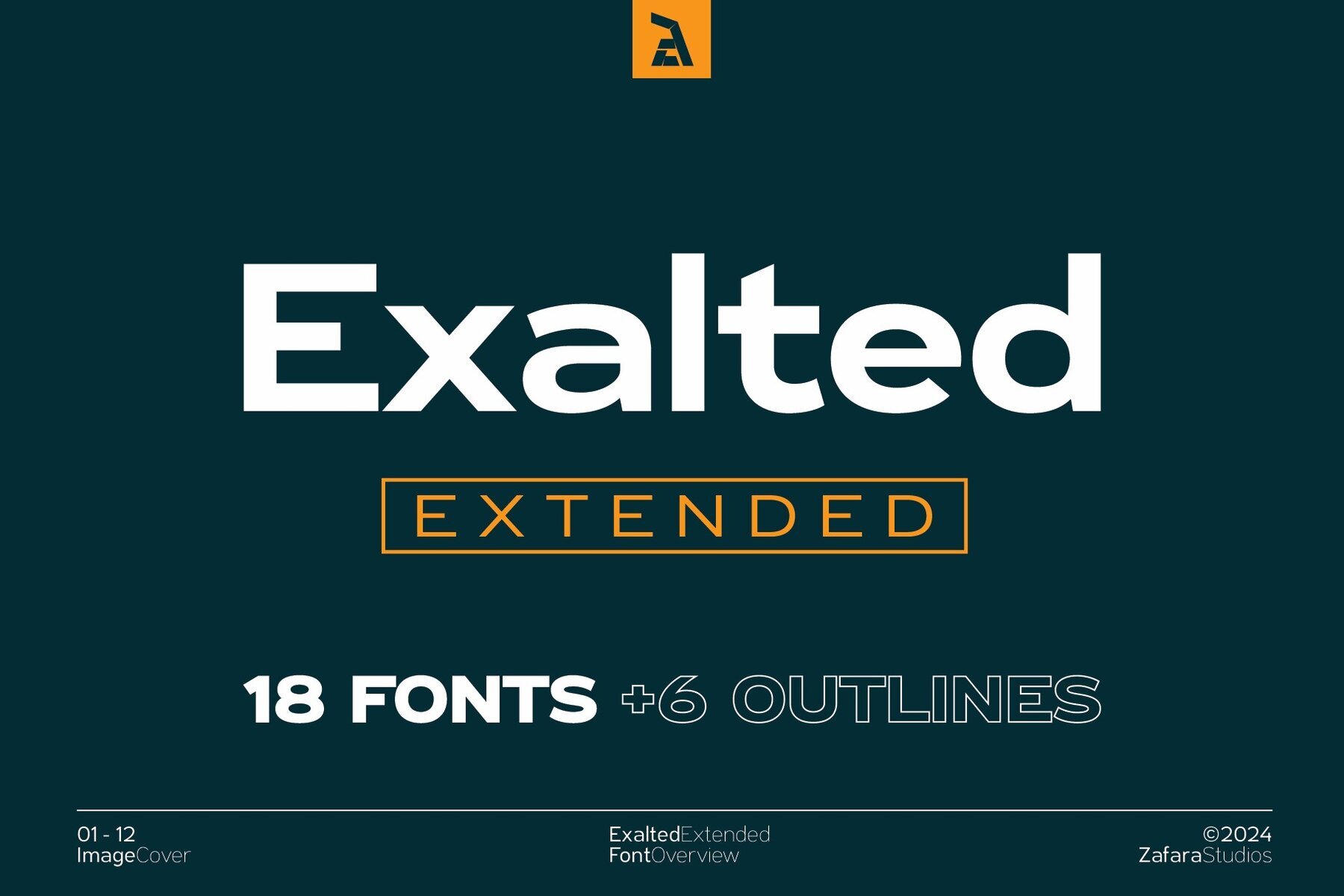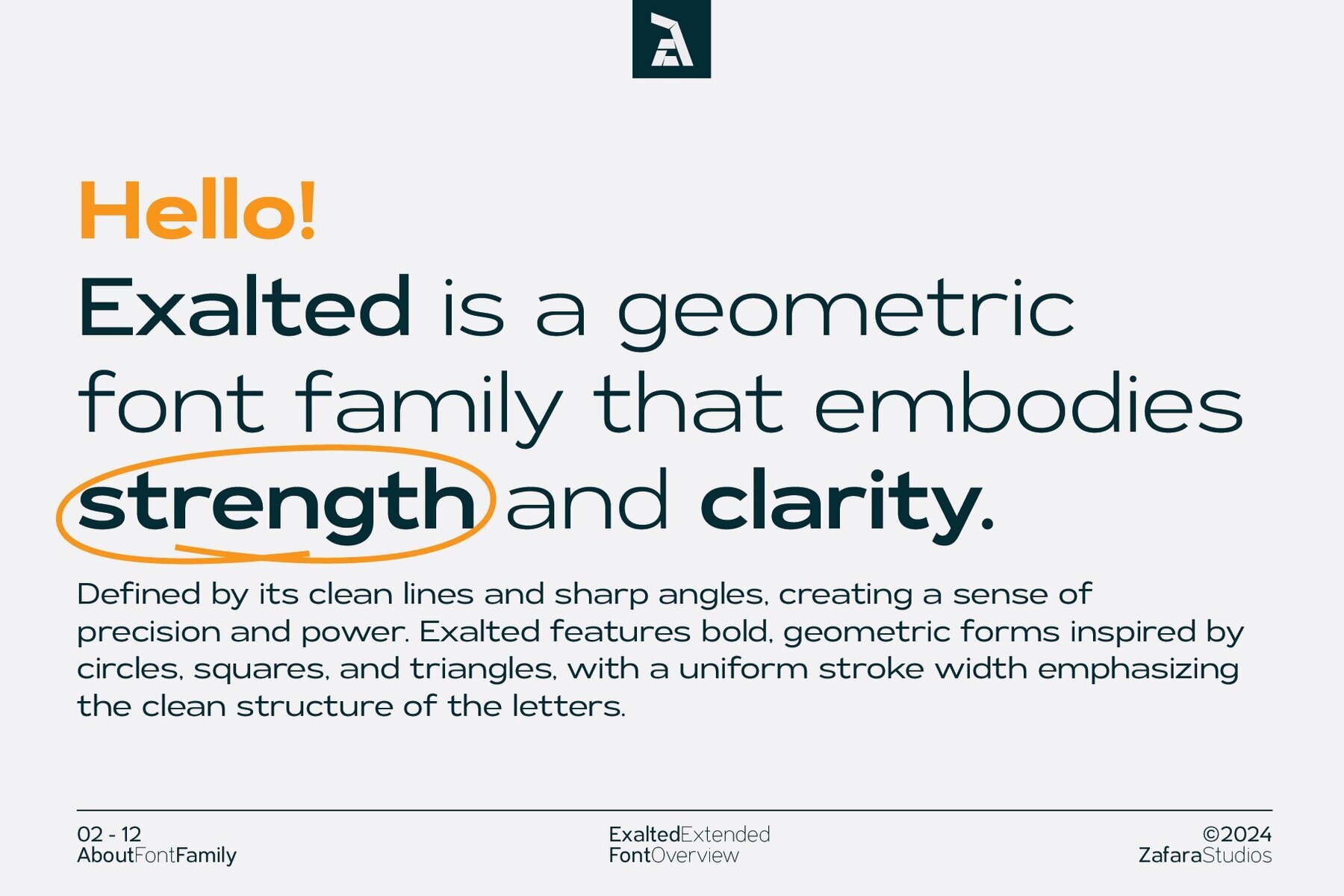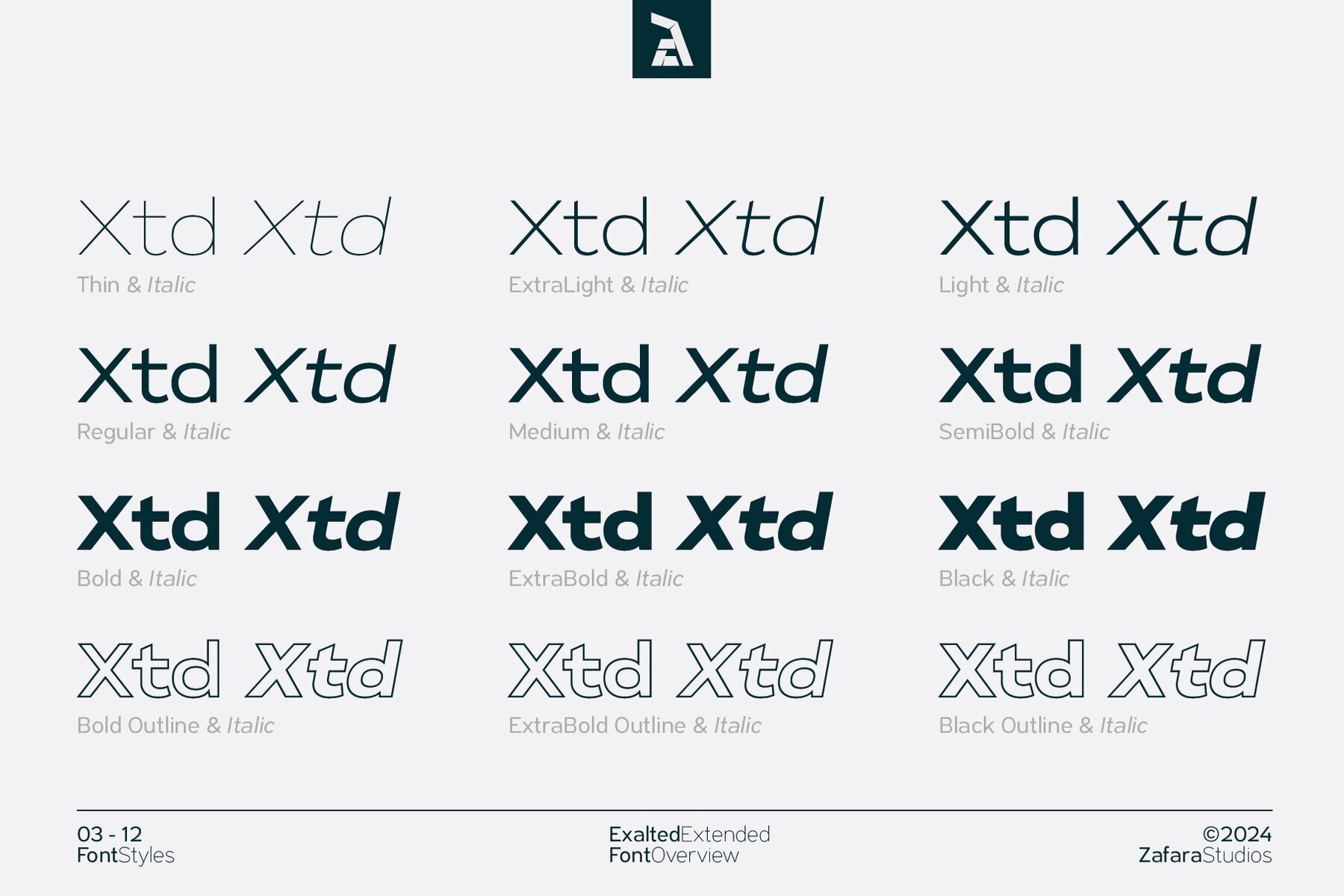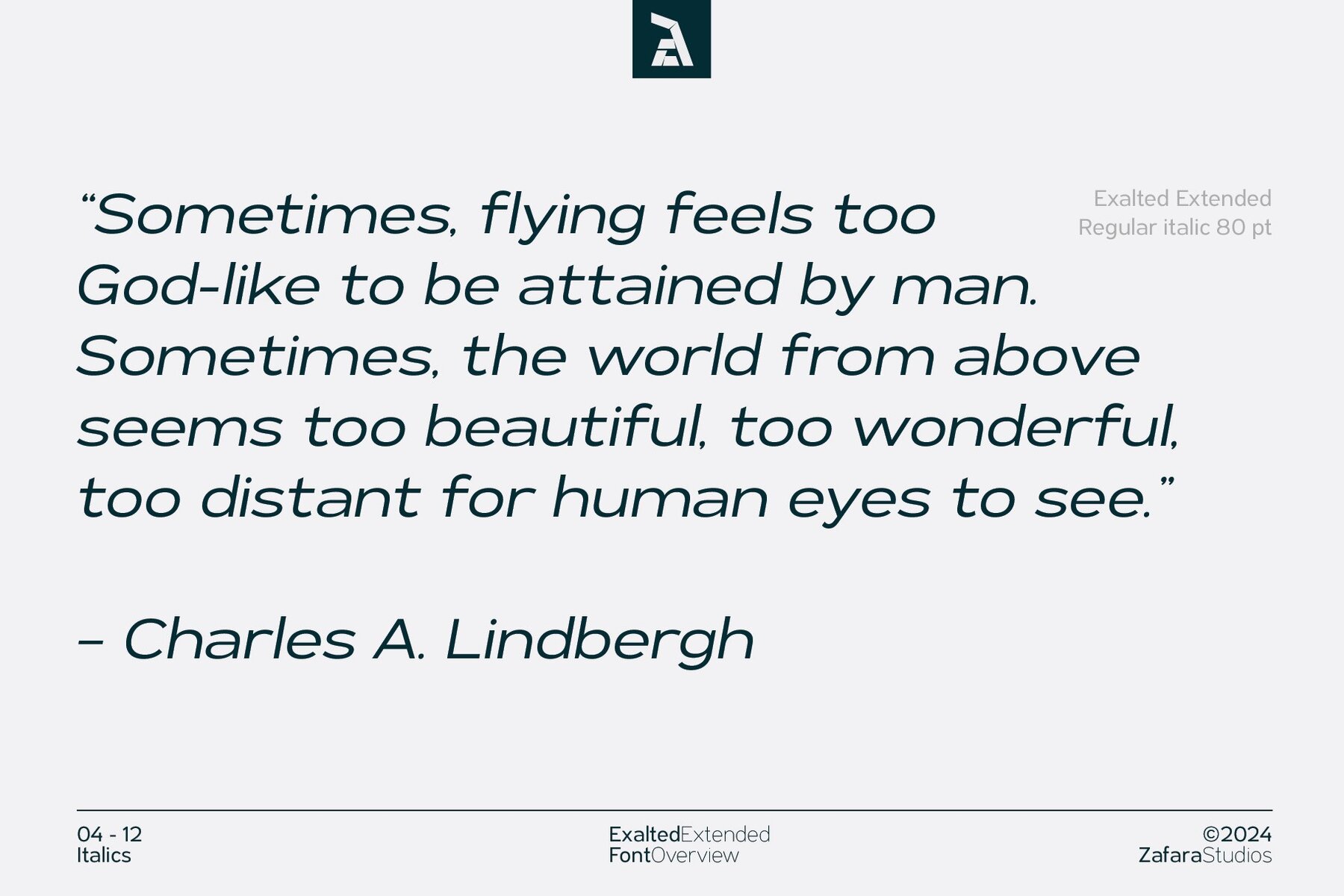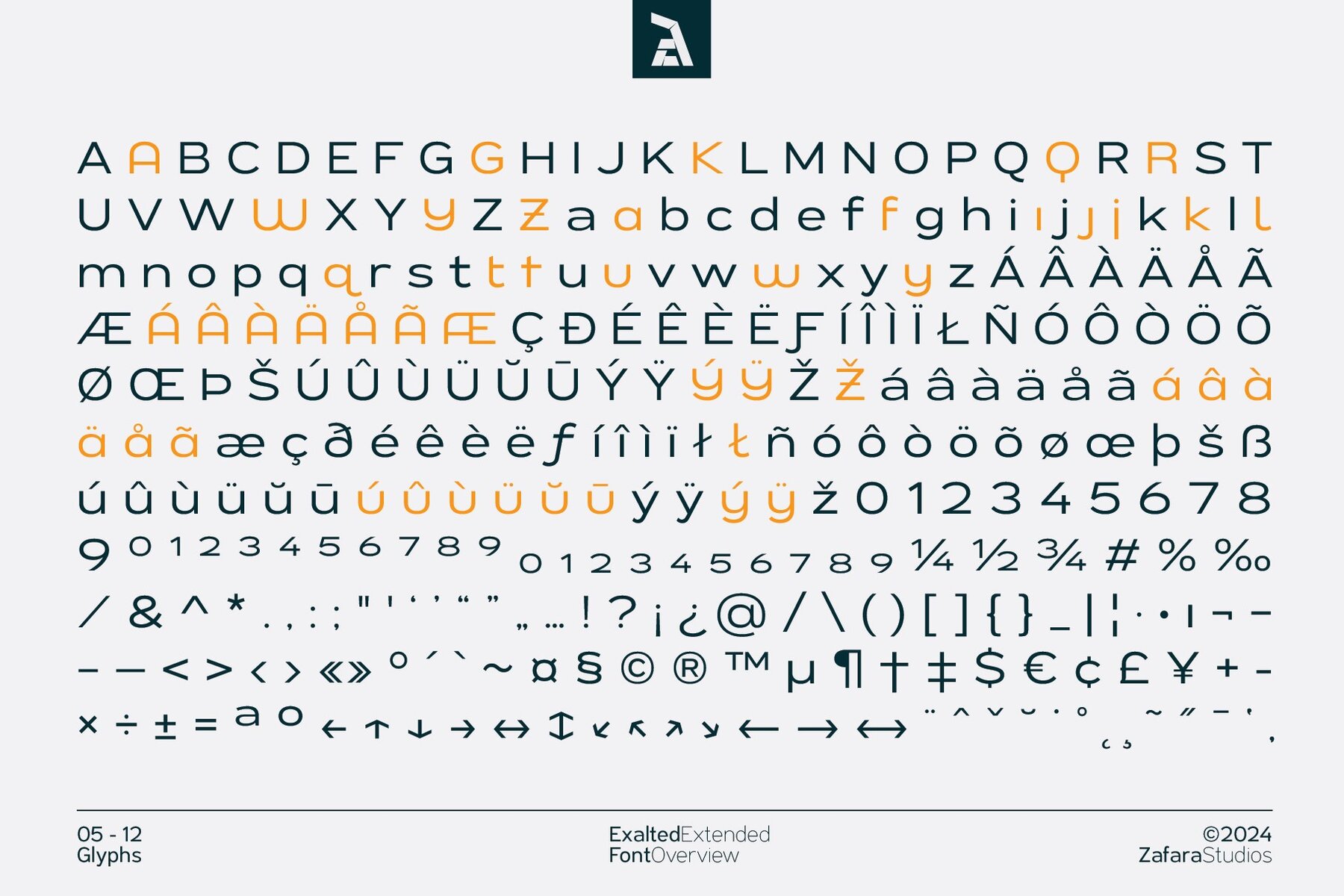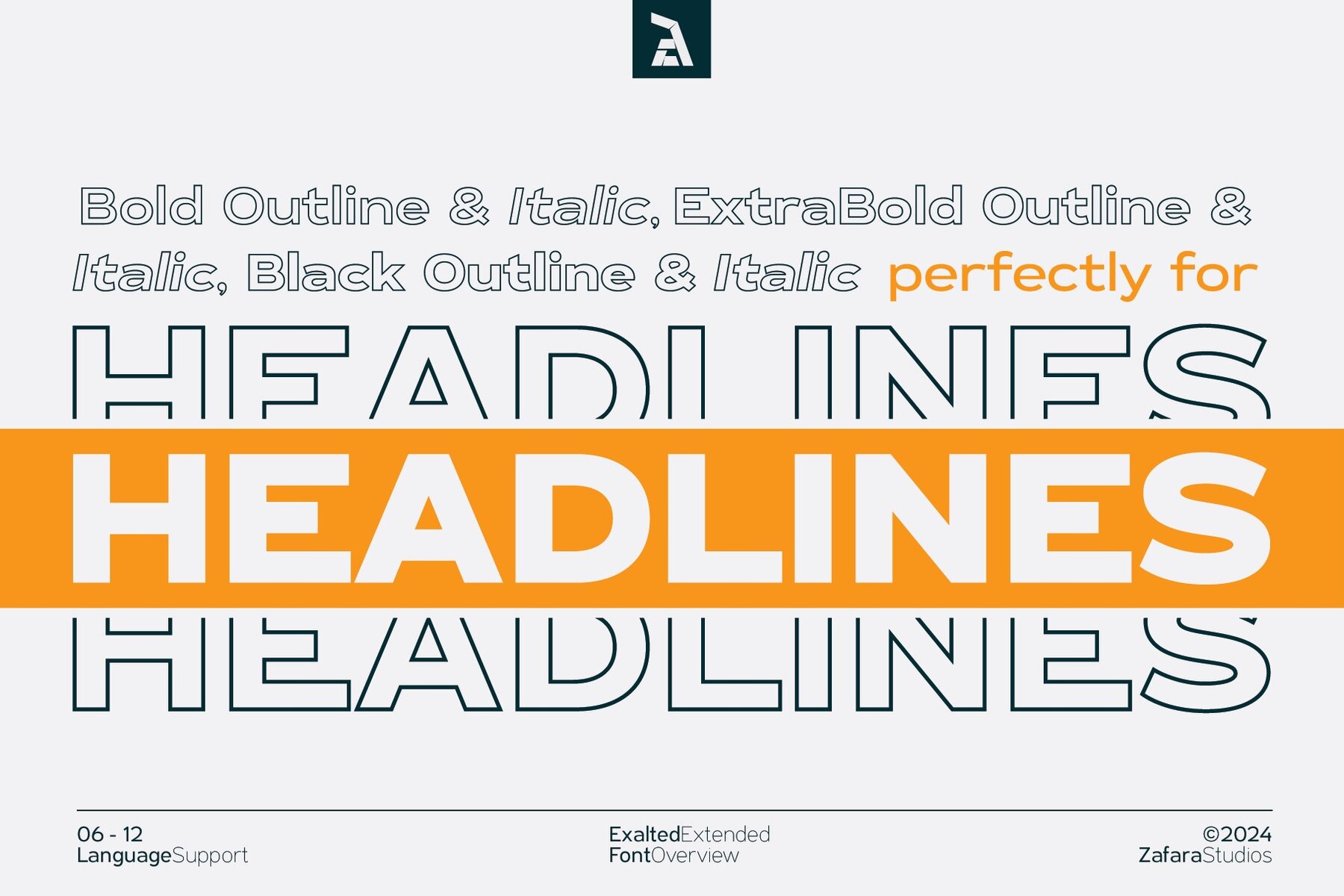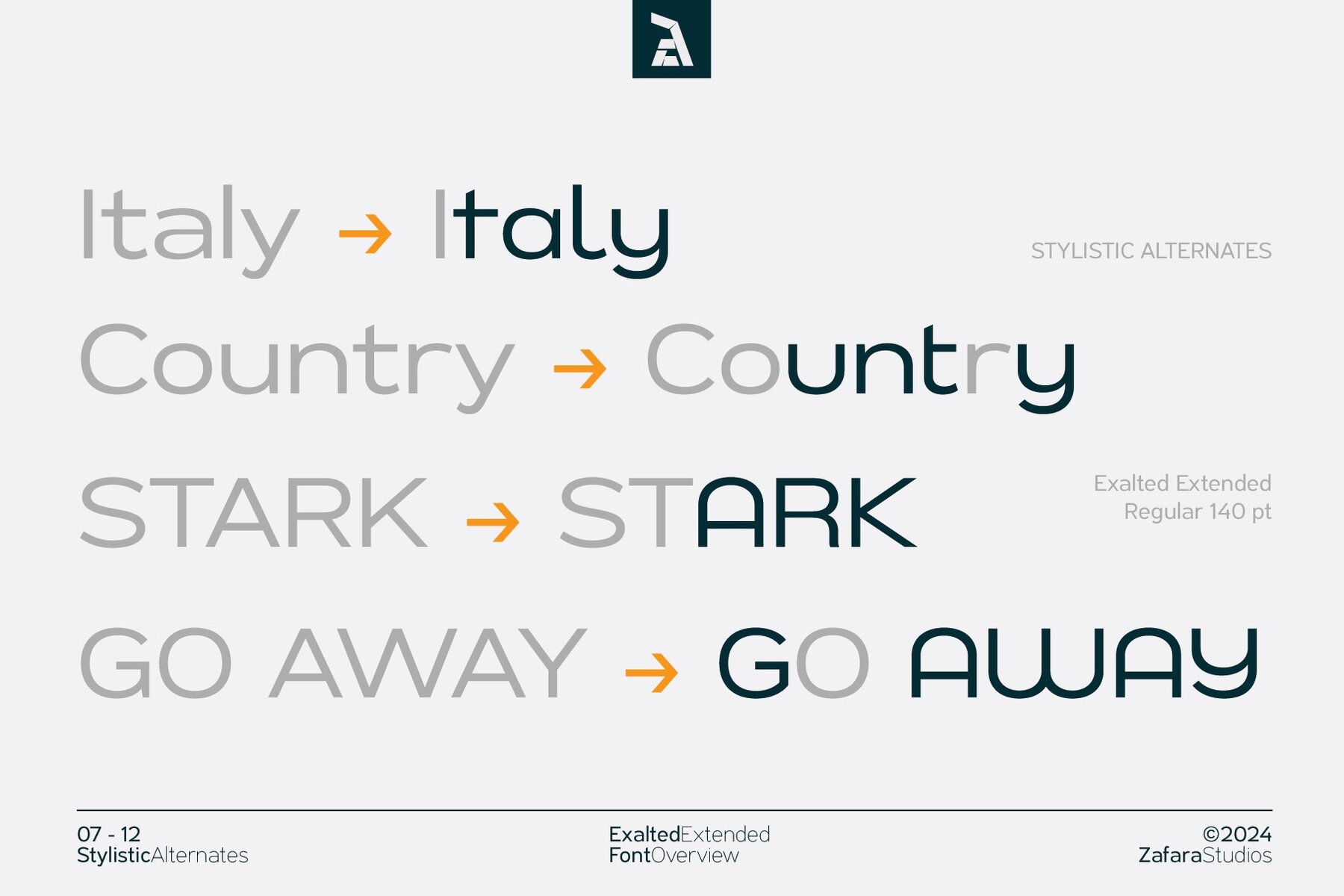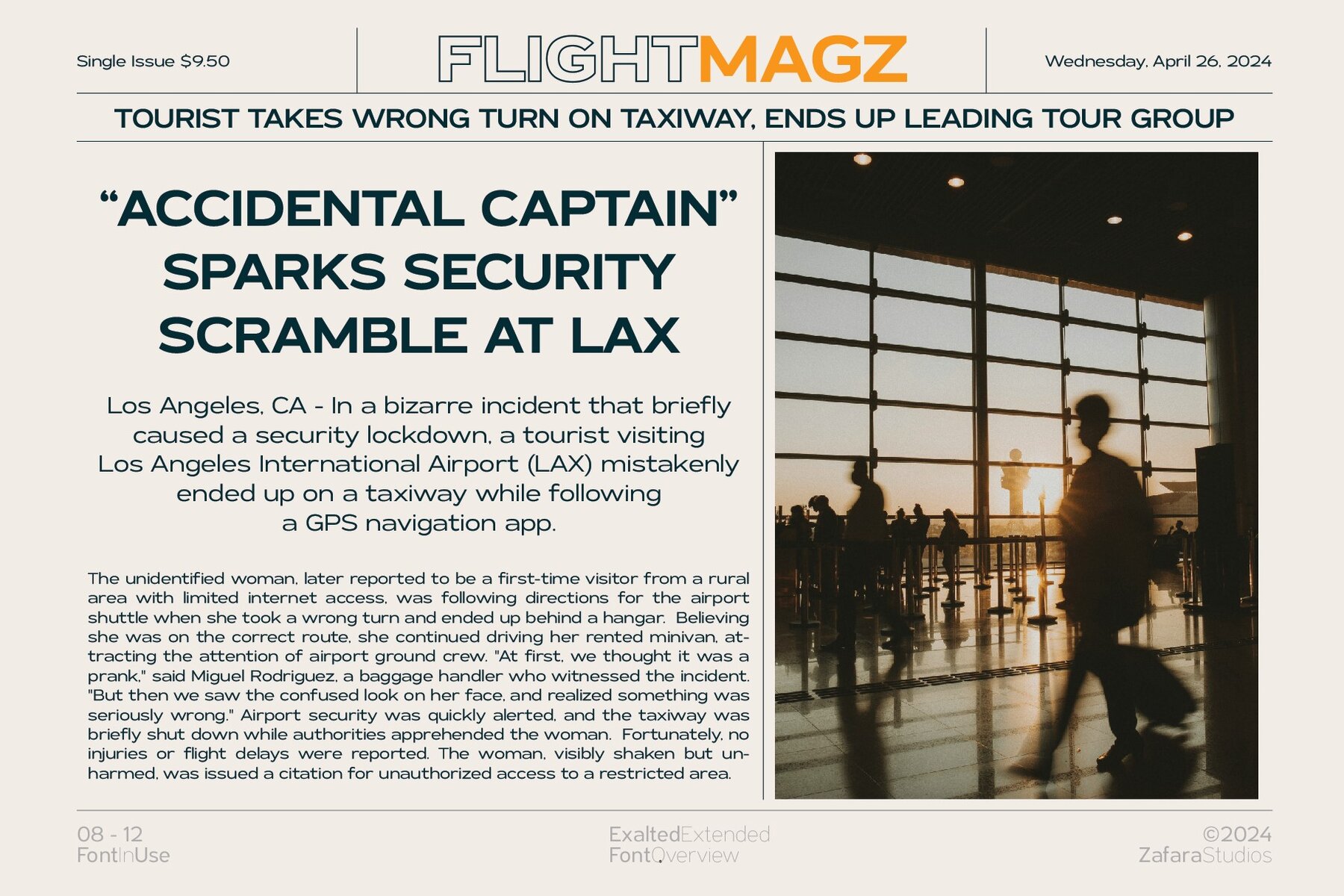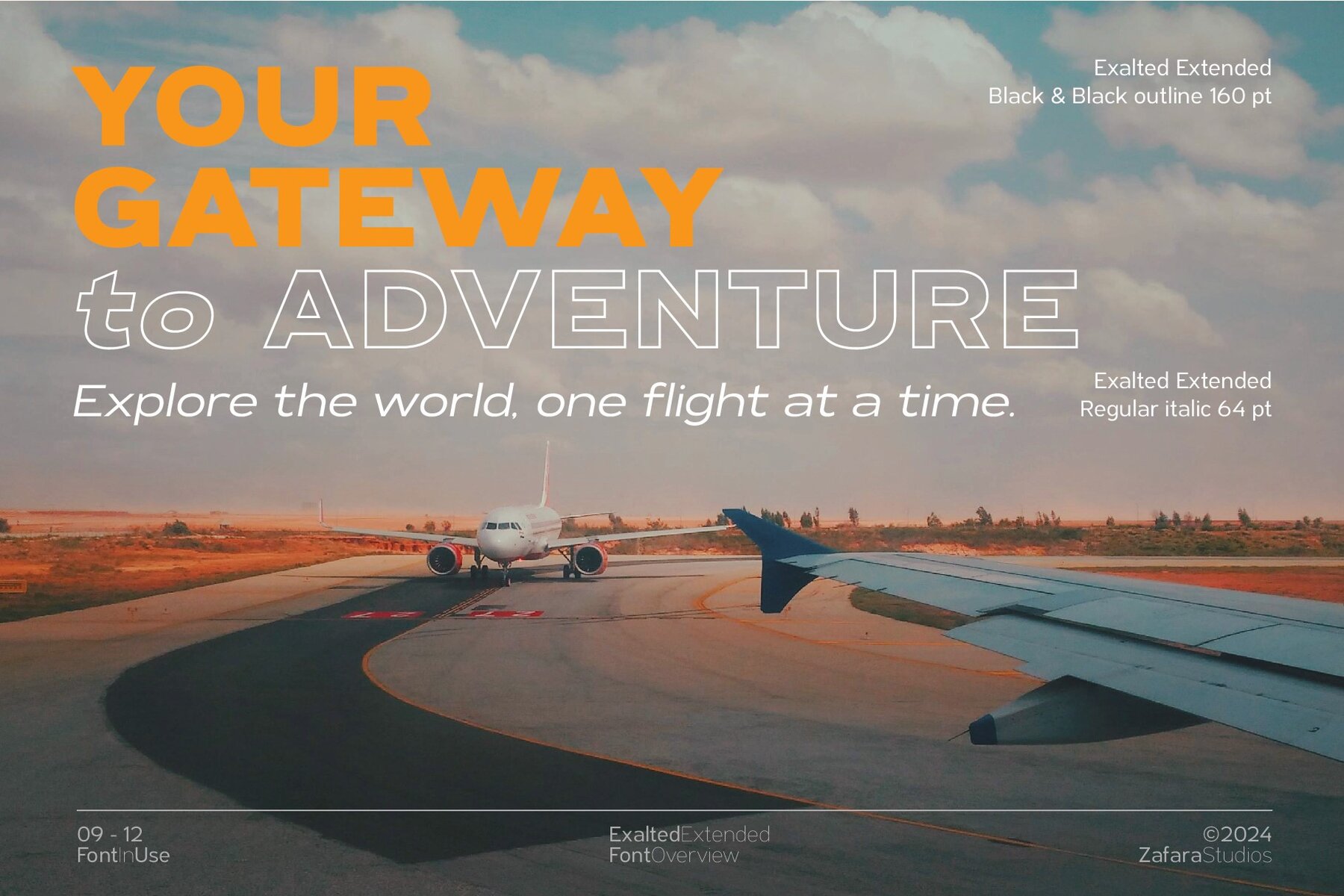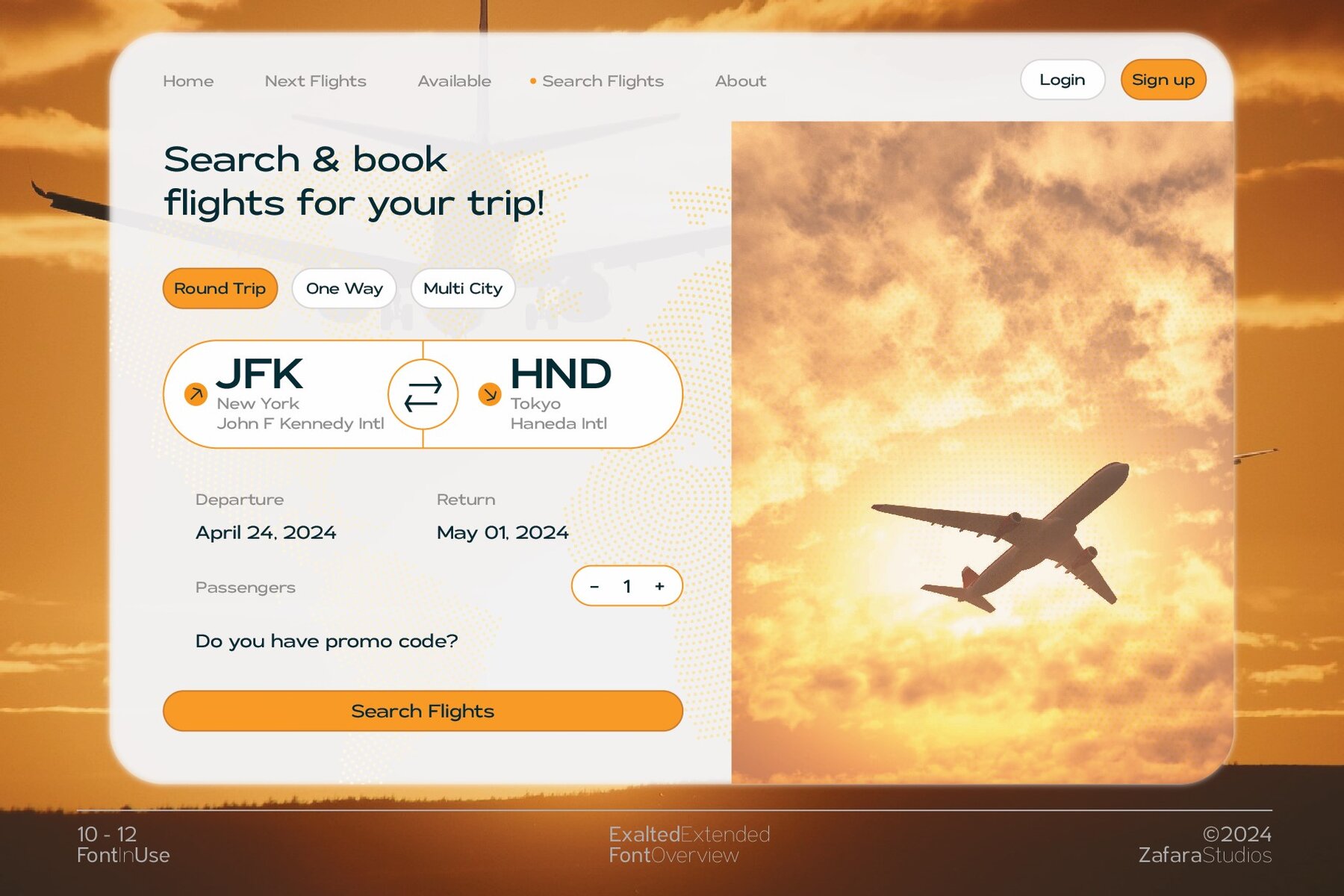
Exalted Extended Font
Exalted Extended is a powerful geometric font designed with clean lines and sharp angles, embodying strength and clarity. Its bold geometric forms draw inspiration from circles, squares, and triangles, creating a precise and uniform stroke width. This design choice gives the font a sense of precision and power, ideal for various design applications. Exalted Extended is versatile, making it perfect for a wide range of projects, including: Exalted Extended offers a comprehensive set of features to meet diverse design needs: For more font options, explore our extensive collection of geometric fonts, sans-serif fonts, and script fonts. YouWorkForThem offers over 180,000 fonts, ensuring you find the perfect style for your project. Experience the quality and versatility of Exalted Extended today, available with flexible licensing options for personal, commercial, and enterprise use.Exalted Extended: A Bold Geometric Font with Versatility
A Typeface for All Your Design Needs
Detailed Features of Exalted Extended